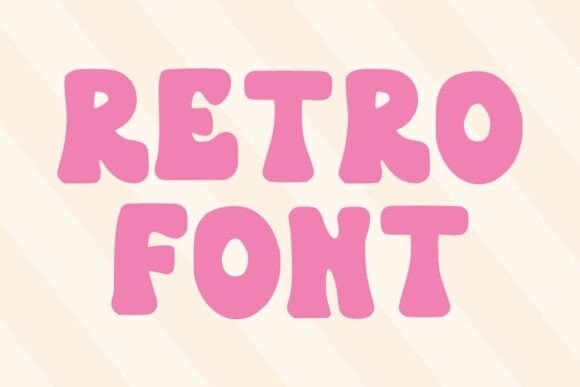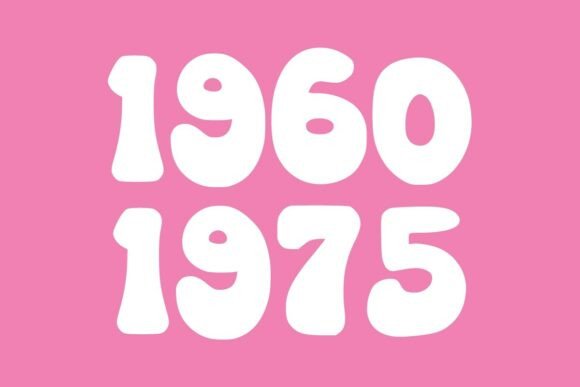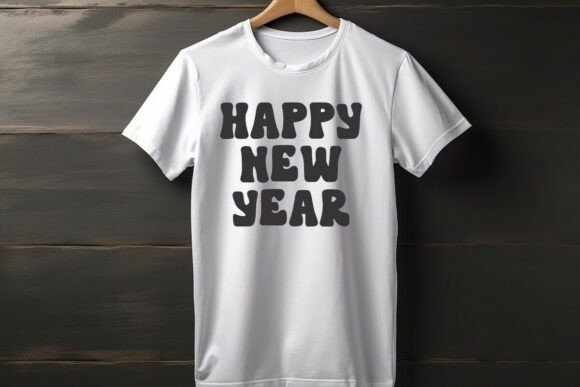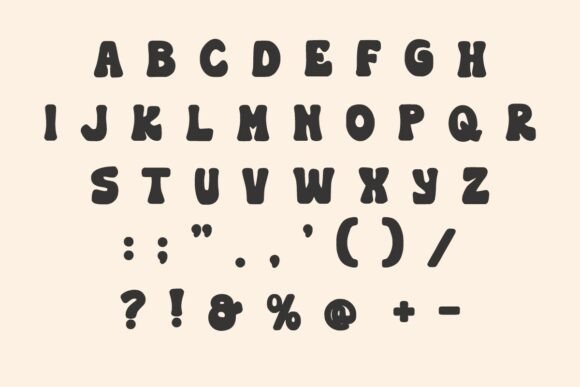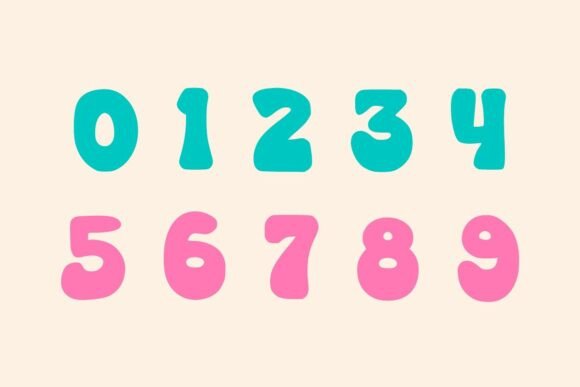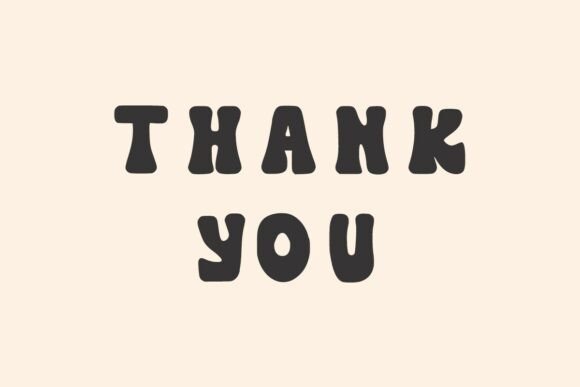
Funky Charm Font: Add a Retro Twist to Your Designs
Are you looking for a font that can add a fun and playful touch to your designs? Look no further than the Funky Charm Font! This fun, retro, and groovy display font is perfect for crafters, designers, and anyone looking to add a unique charm to their work.
What is Funky Charm Font?
Funky Charm Font is a dynamic and eye-catching font that features a unique blend of retro and modern elements. Its fun and playful design makes it perfect for a wide range of applications, from craft and mug designs to headlines, banners, and posters.
Key Features of Funky Charm Font
- Dynamic Effect: The font features a dynamic effect that adds a sense of movement and energy to your designs.
- Unique Charm: The font’s unique charm makes it stand out from other fonts and adds a touch of personality to your designs.
- Retro and Groovy: The font’s retro and groovy design makes it perfect for designers who want to add a vintage touch to their work.
- Versatile: The font is versatile and can be used for a wide range of applications, from craft and mug designs to headlines, banners, and posters.
Uses of Funky Charm Font
Funky Charm Font is perfect for a variety of design projects, including:
- Craft Designs: Use the font to add a fun and playful touch to your craft designs, such as scrapbooking, card making, and DIY projects.
- Mug Designs: Add a unique charm to your mug designs with the Funky Charm Font.
- Gift Designs: Use the font to create fun and personalized gift designs, such as gift tags and wrapping paper.
- Headlines and Banners: Use the font to create eye-catching headlines and banners for events, sales, and promotions.
- Kids Posters and School Posters: The font is perfect for creating fun and engaging posters for kids and school projects.
- Text Effects and Templates: Use the font to create unique text effects and templates for your designs.
- Logos and Name Cards: Use the font to create fun and memorable logos and name cards.
Why Choose Funky Charm Font?
There are many reasons why you should choose Funky Charm Font for your design projects. Here are a few:
- Unique Design: The font features a unique design that will make your designs stand out from the crowd.
- Versatile: The font is versatile and can be used for a wide range of applications.
- Fun and Playful: The font adds a fun and playful touch to your designs, making it perfect for designers who want to create engaging and eye-catching work.
In conclusion, Funky Charm Font is a fun, retro, and groovy display font that is perfect for designers and crafters who want to add a unique charm to their work. Its dynamic effect, unique charm, and versatile design make it perfect for a wide range of applications. Whether you’re creating craft designs, mug designs, headlines, banners, or posters, Funky Charm Font is the perfect choice.